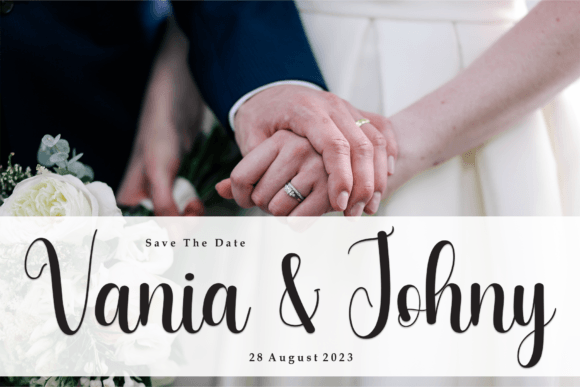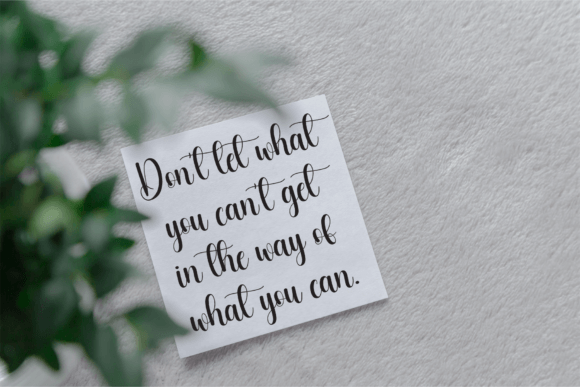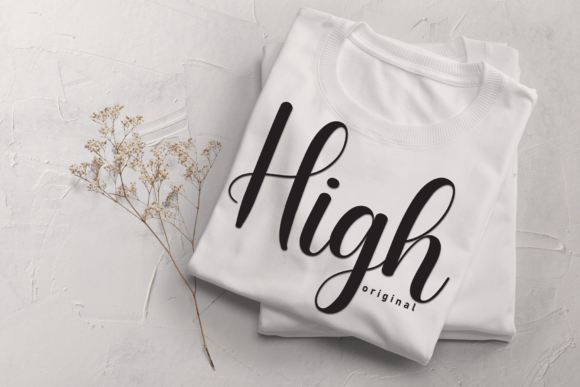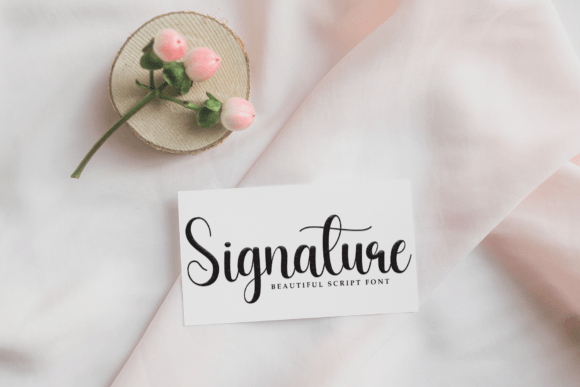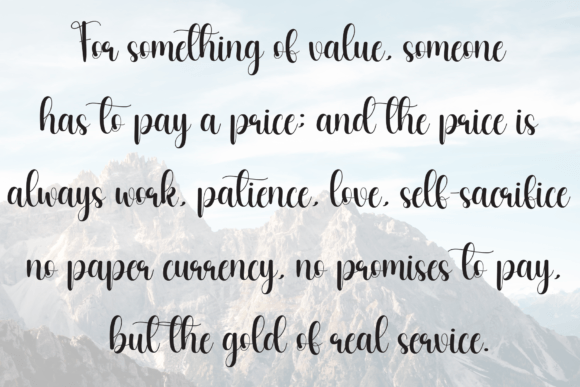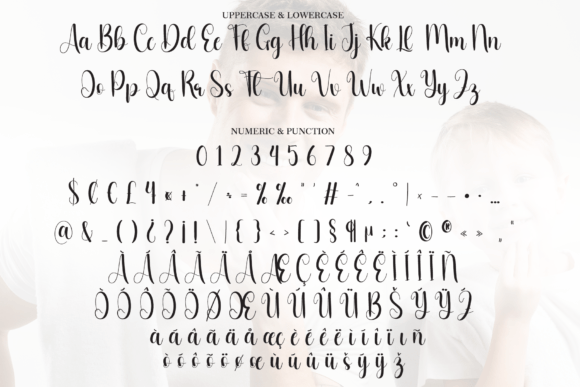
When Words Become Art
There’s something magical about the moment you stumble upon a font that perfectly captures the essence of your design. It’s that instant spark that ignites your creativity and sets your imagination ablaze. For many designers, this moment is what drives their passion and fuels their work.
Meet Daddy Cute Font, the exquisite handwritten font that’s about to become your new best friend. This masterfully designed font seamlessly blends classy calligraphic influences with a fresh, contemporary vibe, making it the perfect addition to any project. Whether you’re a seasoned pro or just starting out, Daddy Cute Font is sure to elevate your designs and take them to new heights.
As a valuable resource for designers, Daddy Cute Font offers a unique touch that sets your work apart from the rest. With its versatility and charm, it’s no wonder why this font is quickly becoming a favorite among creatives.
Daddy Cute Font Key Features
- Font Family: Daddy Cute Font
- Character Count: 1286 glyphs, including Latin, Cyrillic, and Greek alphabets
- Unique Characteristics: Whimsical, playful, and cursive script style, ideal for creative and informal designs
Daddy Cute Font Review
As a designer, I was excited to dive into the “Daddy Cute Font” and see if it lived up to its promise. Here’s my honest review.
- Playful vibe: The font’s design is undeniably cute and playful, making it perfect for projects that need a lighthearted touch.
- Good legibility: Despite its whimsical nature, the font is surprisingly easy to read, even at smaller sizes.
- Customization options: The font comes with a range of styles and weights, giving designers plenty of flexibility to customize their designs.
- Limited versatility: While the font is great for lighthearted projects, it may not be the best choice for more formal or professional designs.
- Not ideal for small text: While the font is legible at larger sizes, it can become difficult to read at smaller sizes, making it less suitable for body text.
Overall impression
Overall, I think the “Daddy Cute Font” is a fun and creative addition to any designer’s toolkit. While it may have some limitations, its playful vibe and customization options make it a great choice for the right projects.
Getting the Most Out of Daddy Cute Font
To get the most out of Daddy Cute Font, try the following tips:
- Use it for titles and headings to add a touch of whimsy.
- Pair it with bold or italic text for emphasis.
The Daddy Cute Font is perfect for:
- Children’s book covers and illustrations.
- Infographics and educational materials.
- Wedding invitations and party decorations.
Alternatives to Daddy Cute Font
Great Vibes Font is a modern, cursive script font perfect for designers looking for a similar feel to Daddy Cute Font. It has a playful and carefree vibe, making it ideal for projects that require a sense of fun and creativity. Great Vibes Font is more elegant and refined compared to Daddy Cute Font, which makes it suitable for a wider range of applications, from branding to editorial design.
Lobster Font is a popular, cursive script font that shares similarities with Daddy Cute Font in terms of its playful and whimsical feel. However, Lobster Font has a more casual and relaxed tone, making it perfect for projects that require a laid-back and approachable atmosphere. Lobster Font is more versatile than Daddy Cute Font, with a wider range of applications, from web design to social media graphics.
Curry Script Font
Curry Script Font is a beautiful, handwritten script font that offers a unique and stylish alternative to Daddy Cute Font. It has a more exotic and sophisticated feel, making it ideal for projects that require a sense of luxury and elegance. Curry Script Font is more ornate and detailed compared to Daddy Cute Font, which makes it suitable for high-end branding and advertising projects.
Carolyna Pro Font is a modern, script font that shares similarities with Daddy Cute Font in terms of its elegant and refined feel. However, Carolyna Pro Font has a more sophisticated and polished tone, making it perfect for projects that require a sense of sophistication and elegance. Carolyna Pro Font is more versatile than Daddy Cute Font, with a wider range of applications, from editorial design to corporate branding.